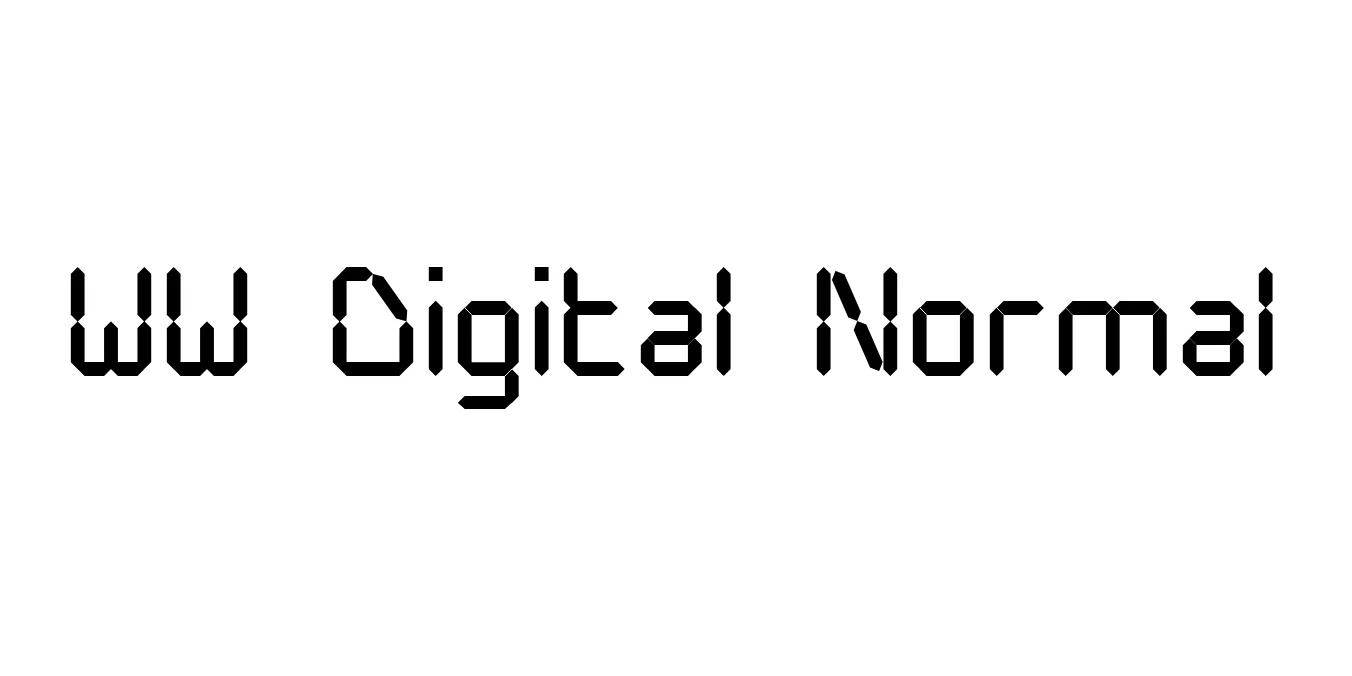
WW Digital Normal
Designed by Wolf White
| Category | Digital / LCD |
WW Digital Normal is a precision-engineered typeface designed to emulate the classic aesthetics of liquid crystal displays (LCD) and electronic LED panels. Characterized by its segmented structure and sharp, geometric lines, this font captures the essence of 1980s and 1990s digital hardware. It is specifically crafted to maintain high legibility in technological contexts, making it a staple for projects requiring a retro-futuristic or strictly industrial digital appearance.
The font technical precision is evident in its uniform stroke weights and consistent spacing, which mimic the physical limitations of early display technology. WW Digital Normal has found its way into numerous user interface designs, gaming HUDs, and cinematic graphics where a sense of authentic computer-generated data is required. Whether used for clock displays or technical documentation, it remains one of the most reliable choices for a clean, no-nonsense digital look.
WW Digital Normal Best Uses
Ideal for HUDs and dashboards in sci-fi or technical gaming environments.
Perfect for creating realistic digital clock or meter displays on hardware product designs.
Effective for posters and branding related to technology, coding, or electronic music.